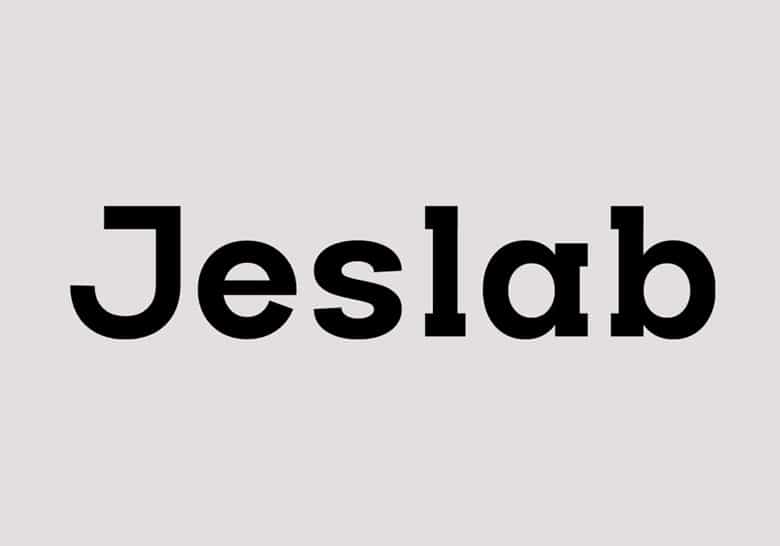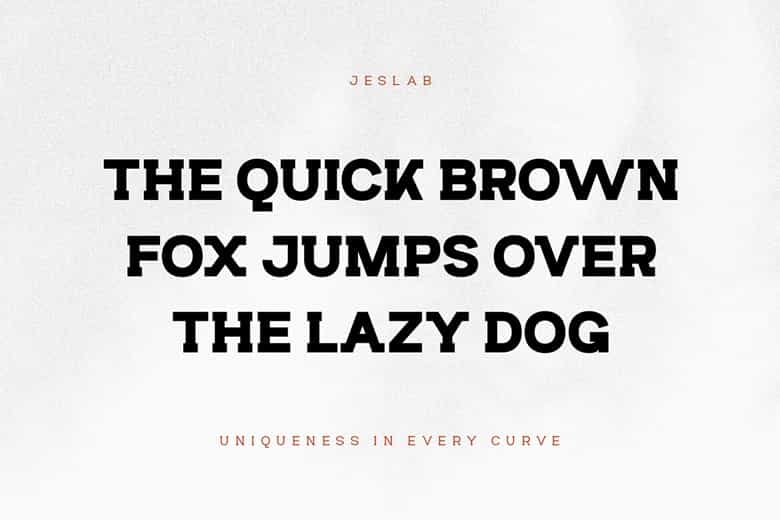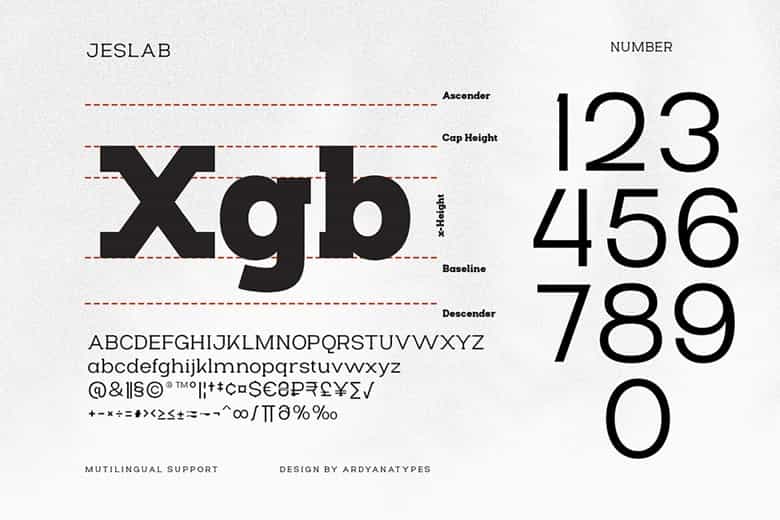
Jeslab is a new slab serif typeface with a strong and elegant character. There are 2 essential styles of Jeslab that are designed for impact and readability, Regular and Black – making for the best of both worlds, that versatility and brilliant boldness. Whether you need subtle sophistication or striking headlines, Jeslab will do.